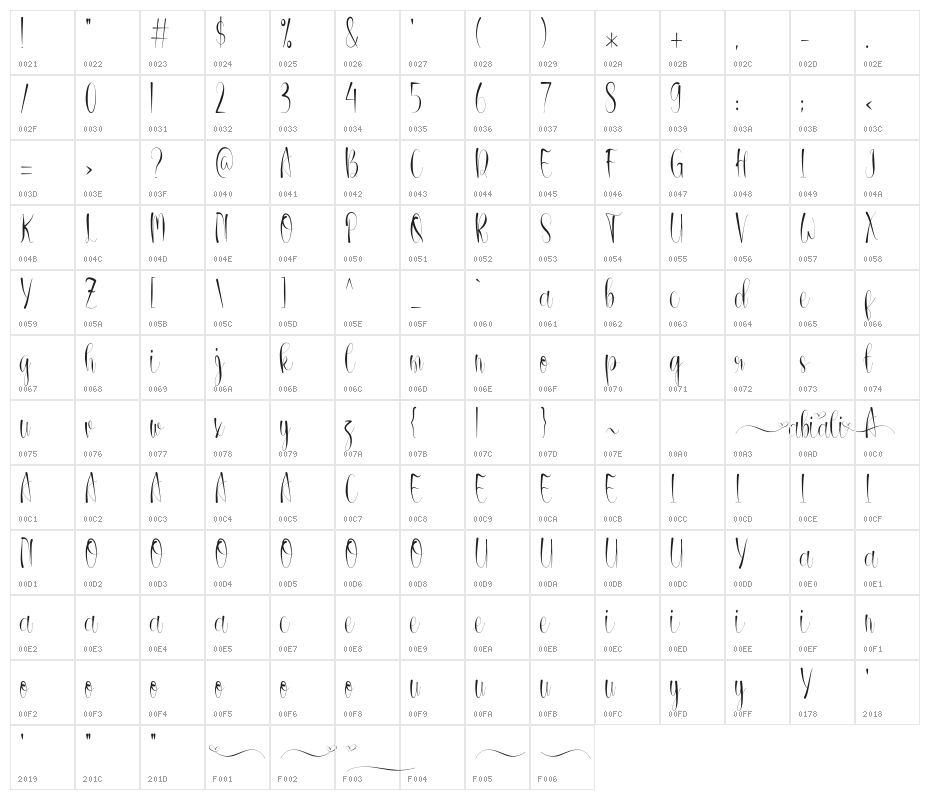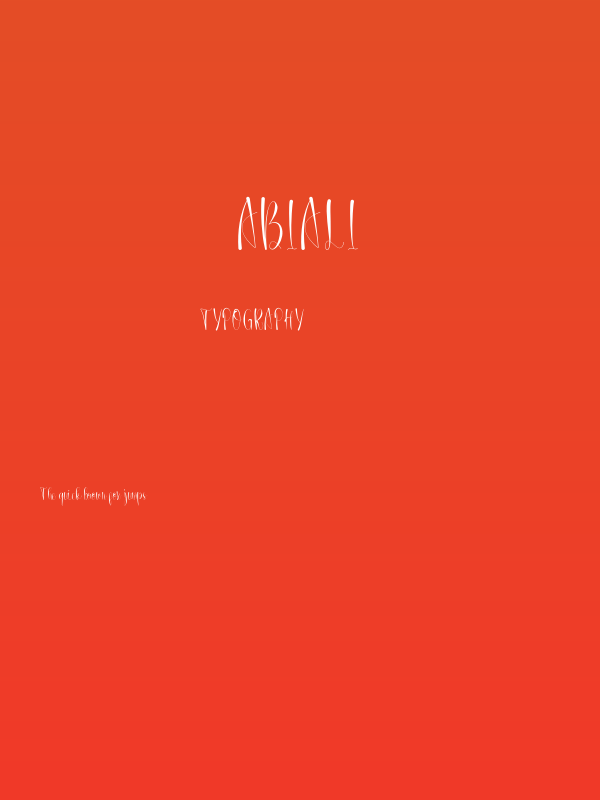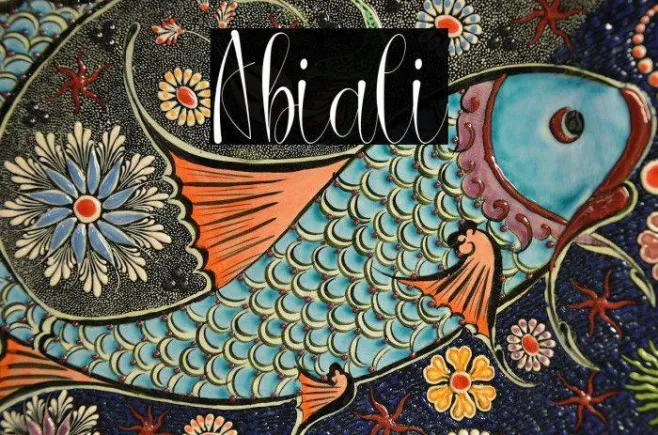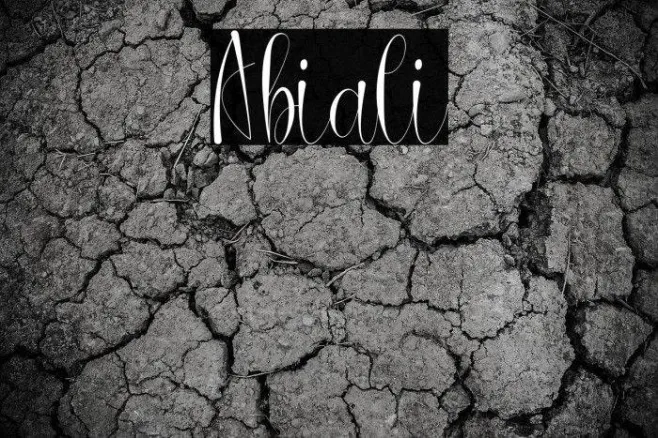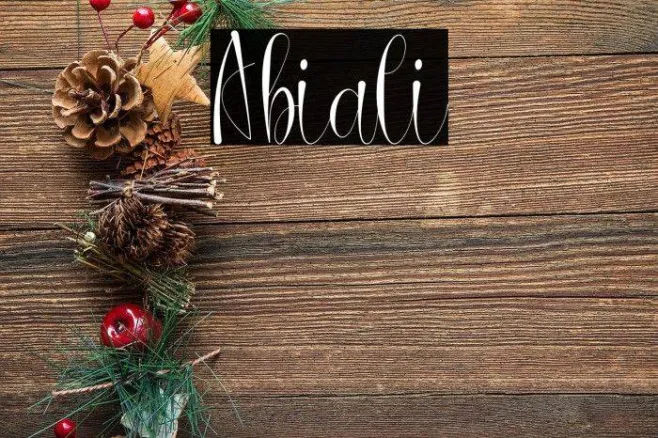
Abiali Font
Abiali Description
This font features a playful and artistic script style with a handwritten appearance. The letters are characterized by their tall, narrow forms and elegant curves, giving them a whimsical and dynamic look. The uppercase letters are bold and striking, while the lowercase letters maintain a consistent flow with varied stroke widths. Numbers and special characters follow the same fluid style, adding to the font's cohesive aesthetic. The overall design is both modern and expressive, making it suitable for creative projects that require a personal touch.
| Proposed Projects | Ideal for greeting cards, invitations, branding, and social media graphics. |